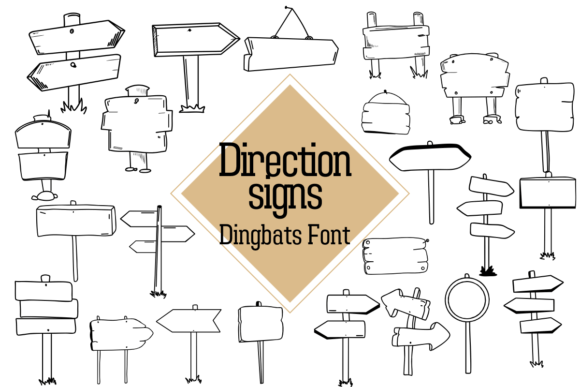
Direction Signs is a fun and practical dingbats font that goes beyond letters – it’s filled with a variety of directional symbols. Use this font to add a playful touch to your designs, guiding attention in a creative way. Whether you’re creating maps, signage, or just want to add a whimsical element to your project, Direction Signs is the perfect choice. Easily navigate through design possibilities with this charming font that speaks direction in every character.
Direction Signs Font